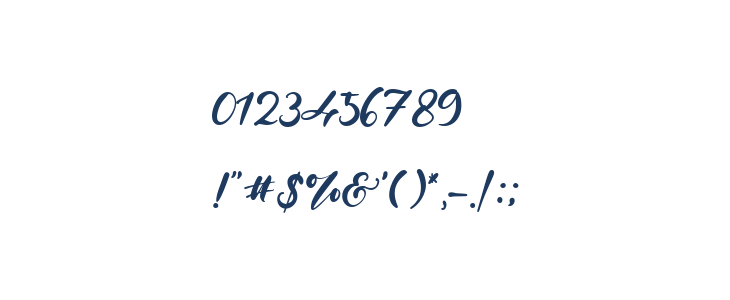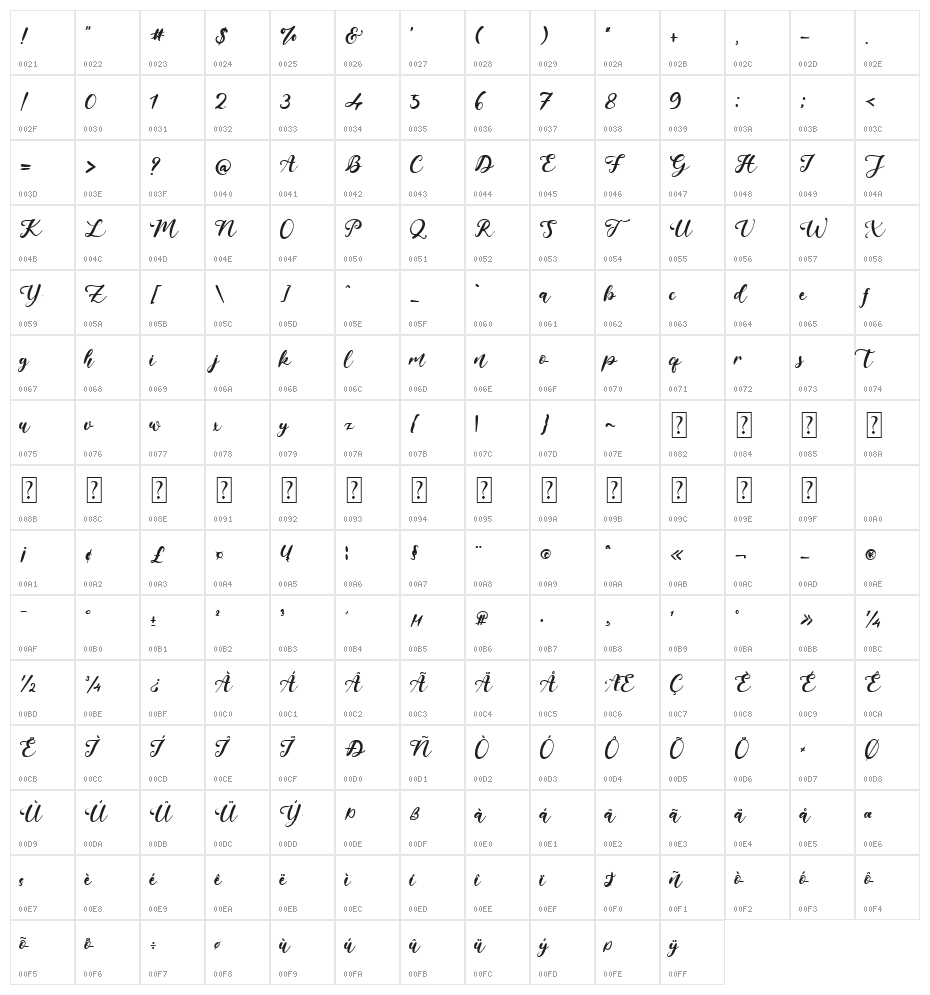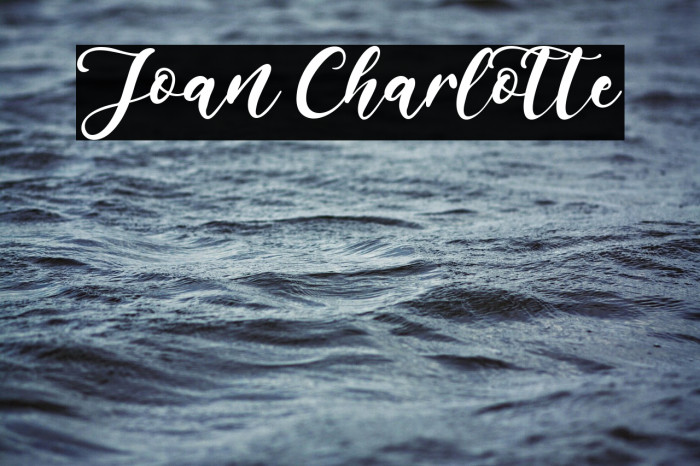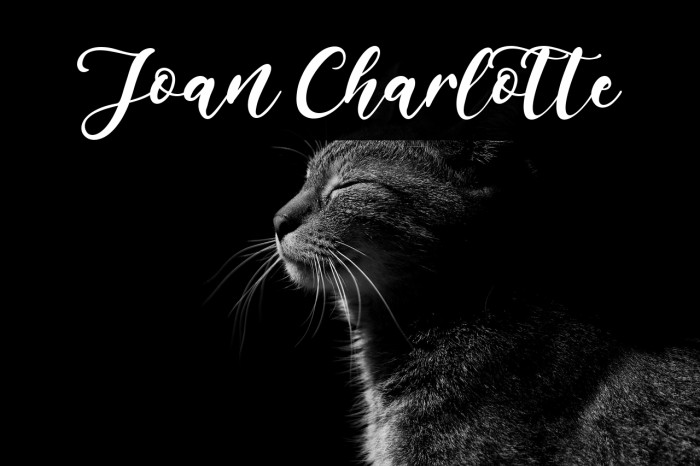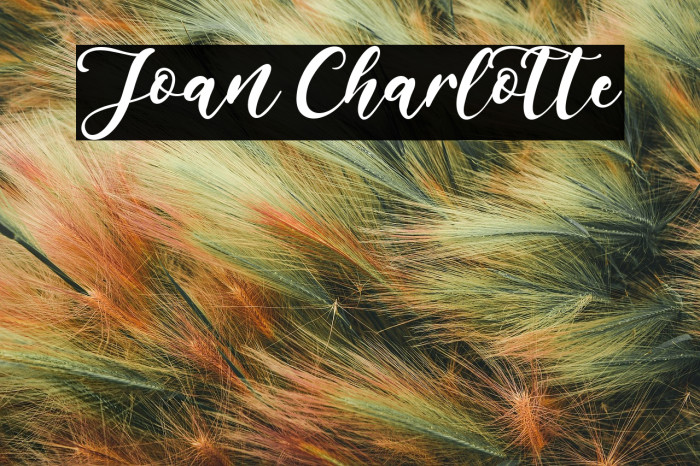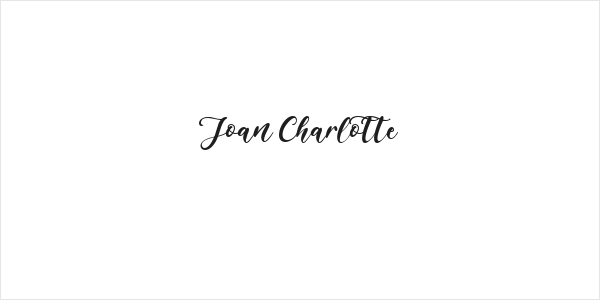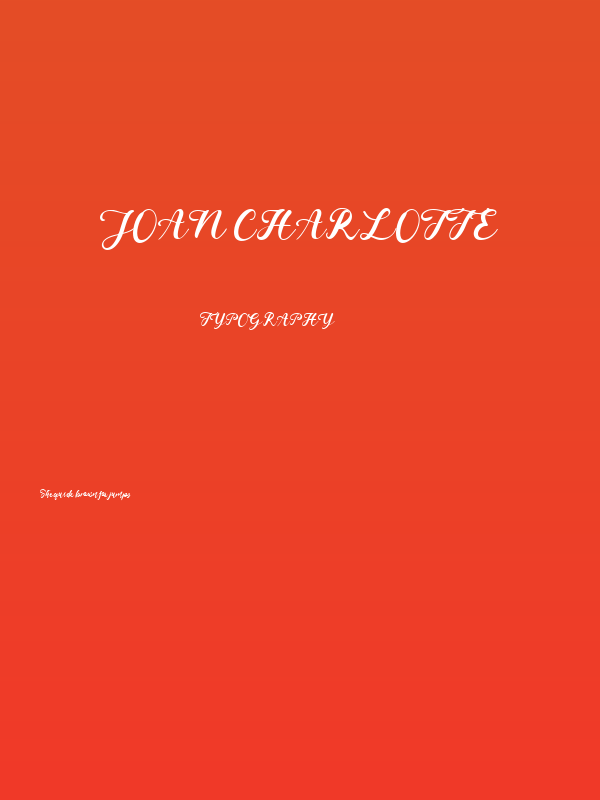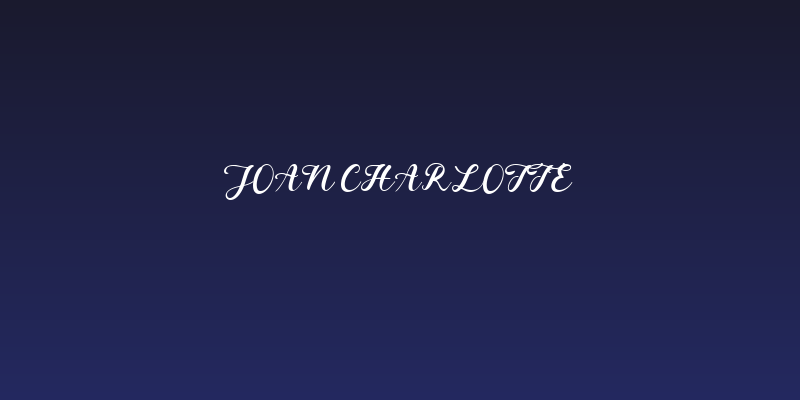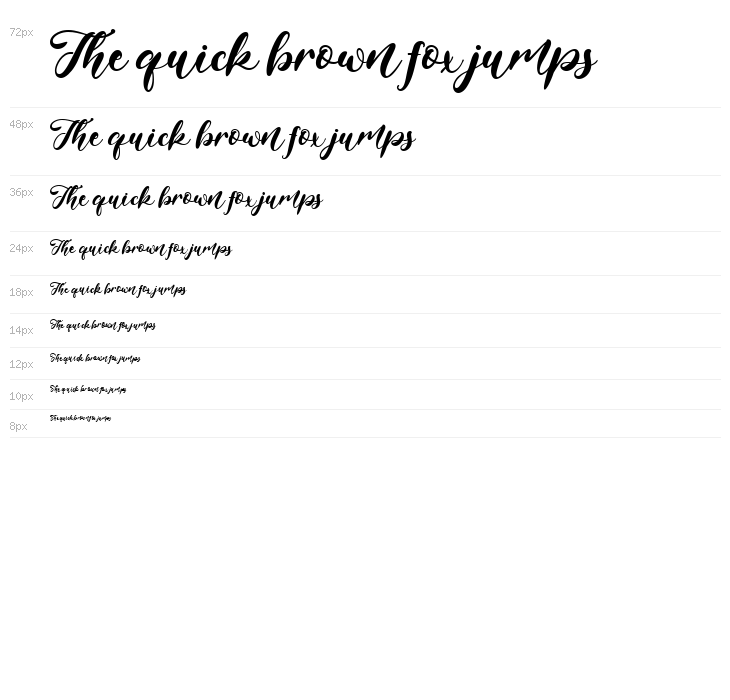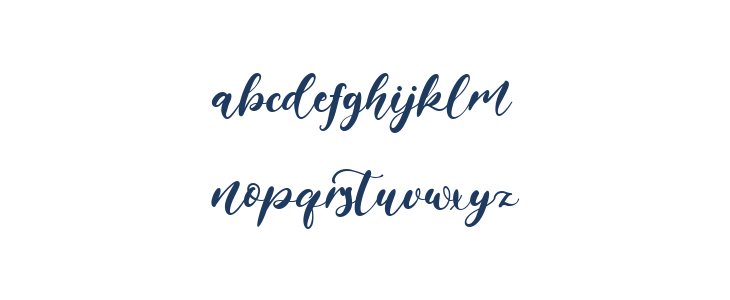
Joan Charlotte Font
Joan Charlotte Description
This elegant script font features a flowing, cursive style with smooth, connected strokes that convey a sense of sophistication and grace. The uppercase letters are ornate, with sweeping curves and flourishes that add a decorative touch. The lowercase letters maintain a consistent flow, enhancing readability while preserving the font's artistic flair. Numbers and special characters are designed with the same attention to detail, ensuring a cohesive look across all text elements. The font's overall appearance is both classic and modern, making it versatile for various design applications.
| Overall Style | Elegant, Classic |
| Proposed Projects | Ideal for wedding invitations, elegant branding, greeting cards, and upscale packaging. |